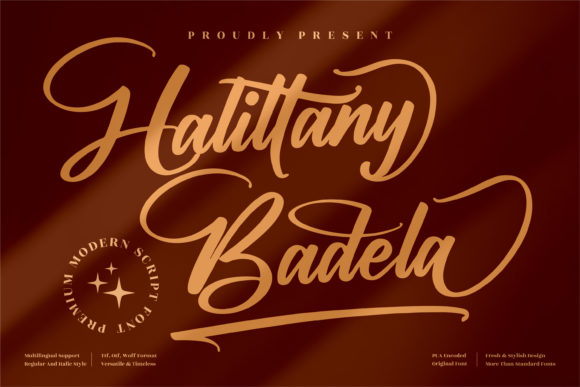
In a world of digital expression, your words hold immense power. They can persuade, captivate, and create lasting impressions. Imagine a font that not only amplifies your message but also transforms it into a visual masterpiece. Allow us to introduce Halittany Badela, a script font born from the fusion of elegance, beauty, and refinement.
Halittany Badela is a font that speaks to your soul. Its intricate curves and delicate strokes evoke a sense of timeless sophistication, inviting your audience to immerse themselves in an experience that transcends the ordinary. With its classy, elegant, and modern allure, Halittany Badela elevates your creations, effortlessly capturing the essence of grace and refinement.
The versatility of Halittany Badela knows no bounds. Whether you're crafting logos that exude professionalism, designing branding materials that radiate sophistication, or creating invitations that whisper romance, this font performs flawlessly. Its adaptability extends to stationery, wedding designs, social media posts, and beyond, ensuring that your every word carries weight and impact.
One of the hallmarks of Halittany Badela is its PUA encoding. This ingenious feature grants you effortless access to a treasure trove of glyphs and ligatures, empowering you to unleash your creativity and explore the full potential of this magnificent font. Experiment with stunning combinations, create breathtaking monograms, and weave intricate patterns that leave your audience spellbound.
Halittany Badela is more than just a font; it's an artistic expression waiting to be discovered. Its ability to transform ordinary words into extraordinary works of art is truly remarkable. Whether you're a seasoned designer seeking to elevate your creations or a passionate individual seeking to make a statement, Halittany Badela is your perfect companion.
Don't settle for ordinary fonts that blend into the background. Choose Halittany Badela, a font that commands attention, captivates hearts, and leaves an everlasting impression. Unleash the power of your words and let Halittany Badela orchestrate a symphony of visual delight.